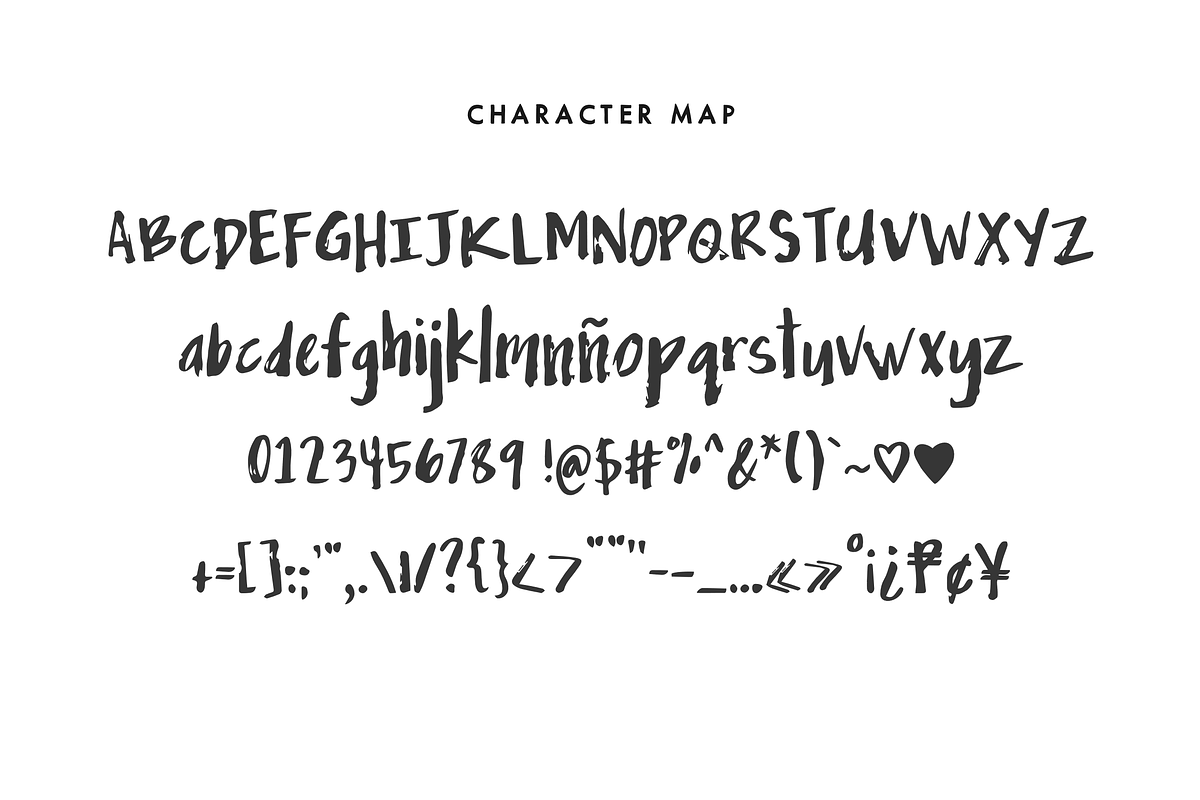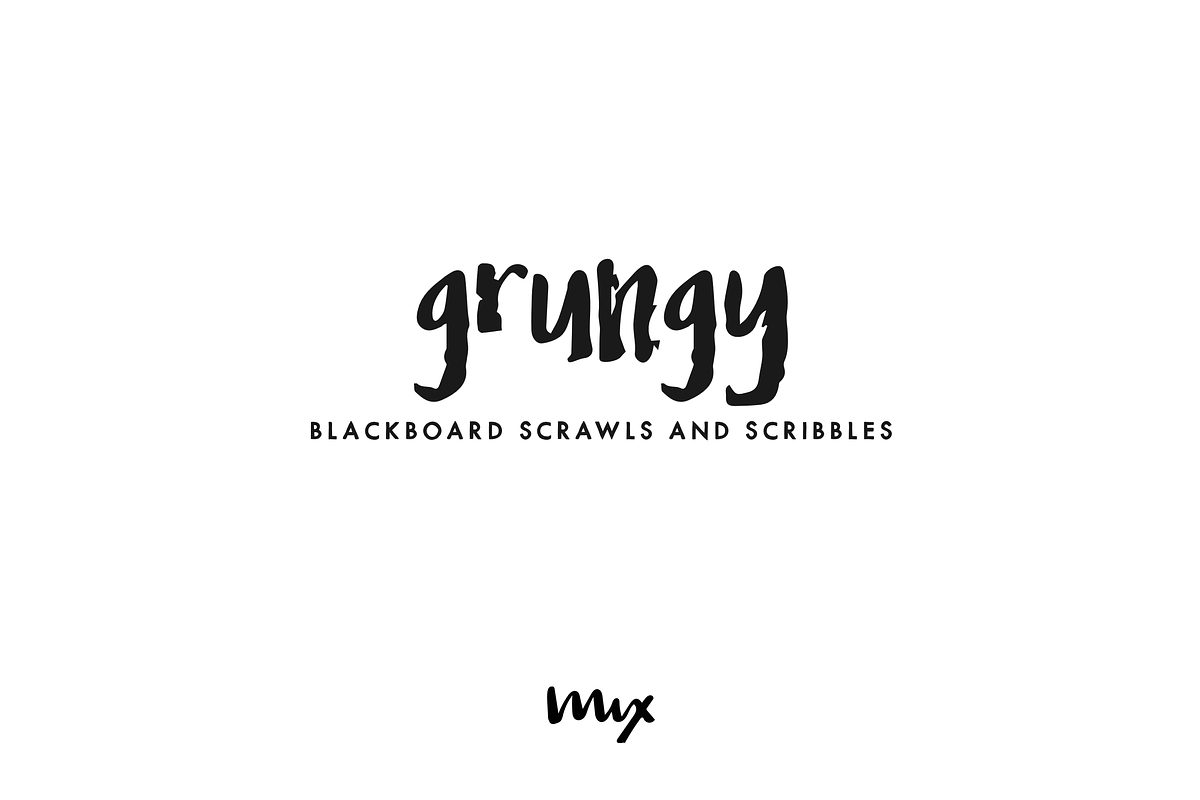
Grungy — Blackboard Scribbles
Grungy — Blackboard Scribbles by Mix Fonts is a font selected for branding, posters, packaging, typography.
Grungy — Blackboard Scribbles by Mix Fonts fits naturally into Branding, posters, packaging, typography.